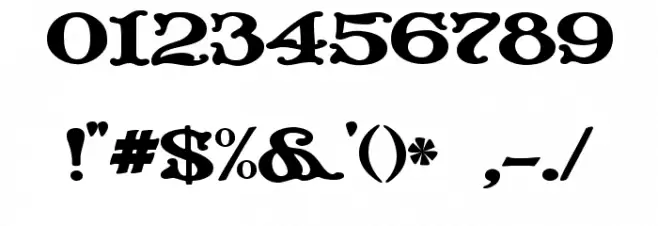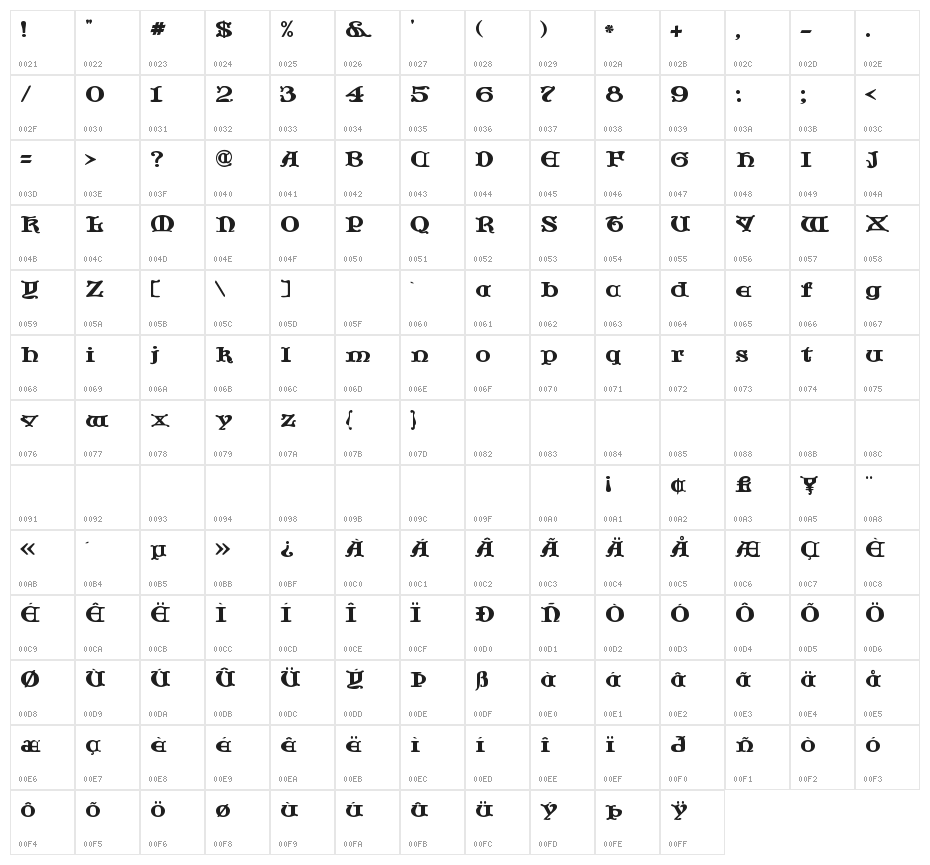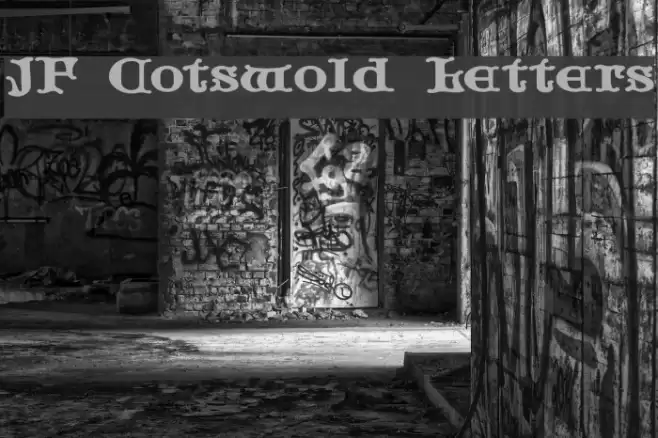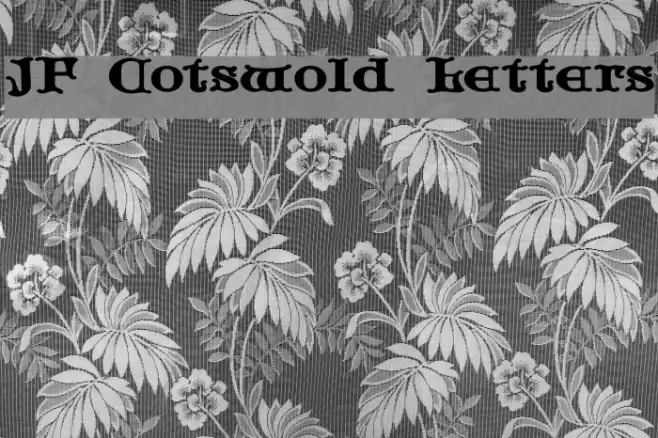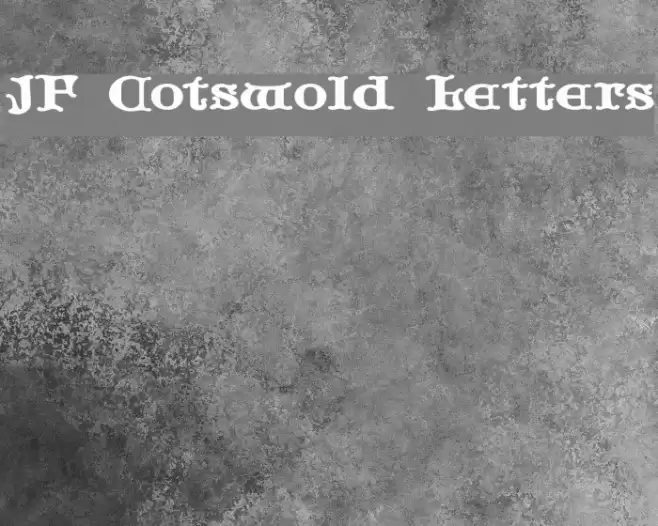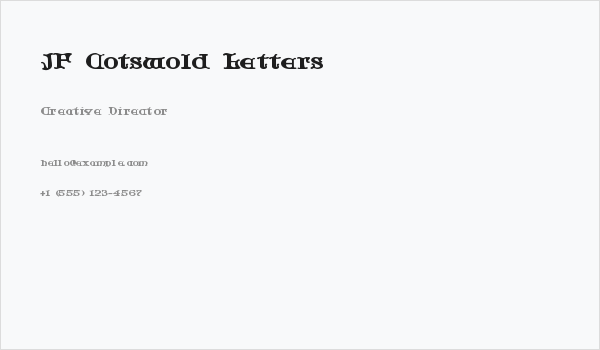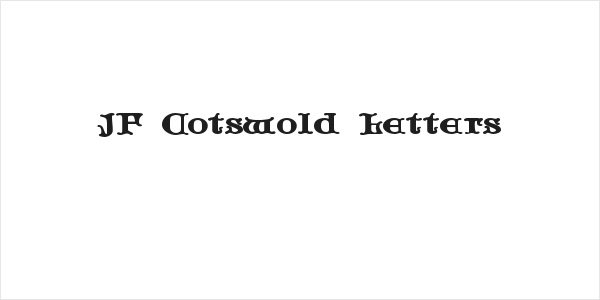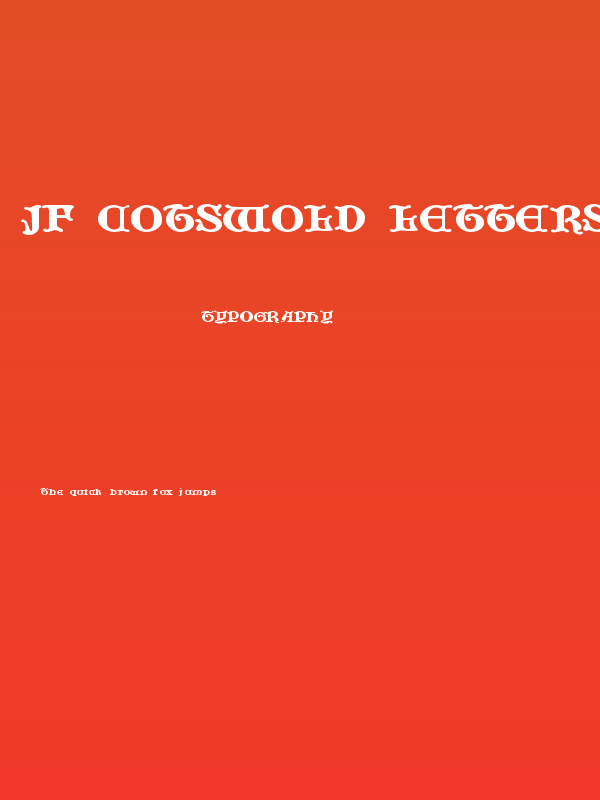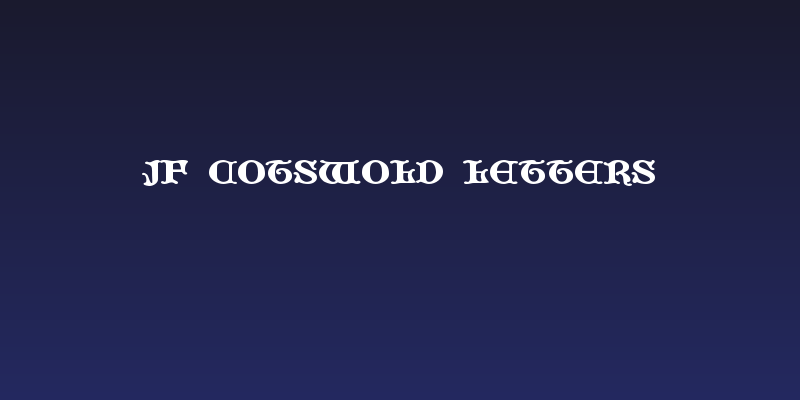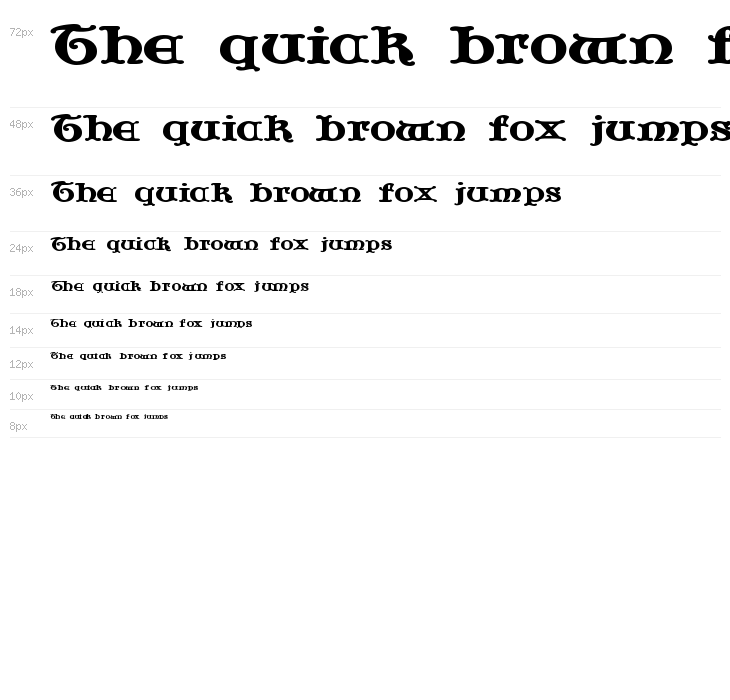
JF Cotswold Letters Font
JF Cotswold Letters Description
This font features a bold and decorative style with a distinct vintage flair. The characters are designed with thick strokes and unique serifs that give them a strong presence. The uppercase letters have a dramatic appearance, while the lowercase letters maintain a consistent and harmonious flow. Numbers and special characters are crafted with the same boldness, ensuring uniformity across all glyphs. The font's intricate details and ornamental elements make it stand out, ideal for projects that require a touch of elegance and historical charm.
| Proposed Projects | Ideal for vintage-themed posters, book covers, branding, and logos that require a strong, decorative typeface. |